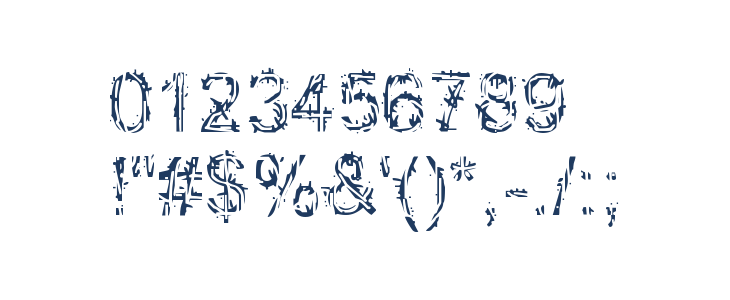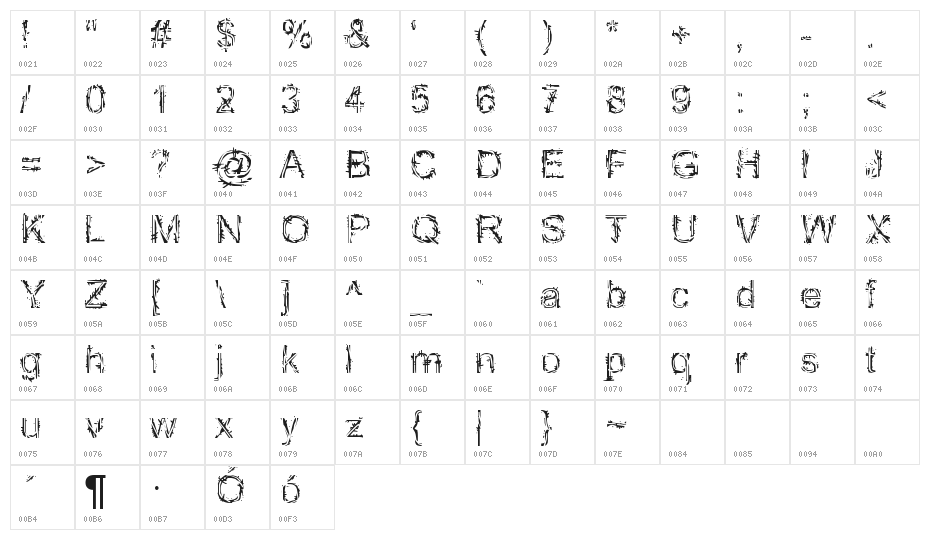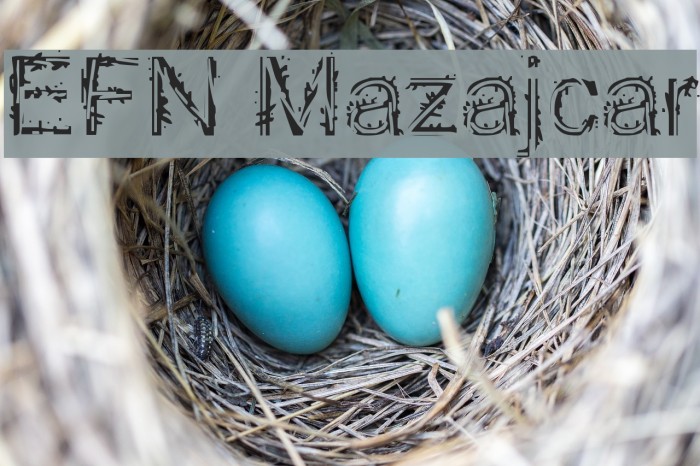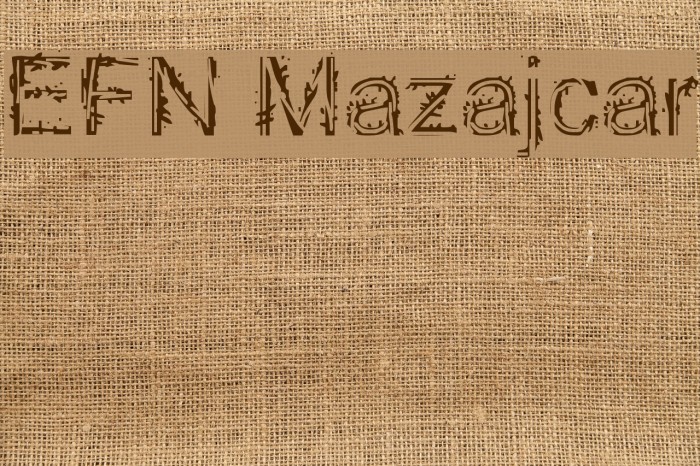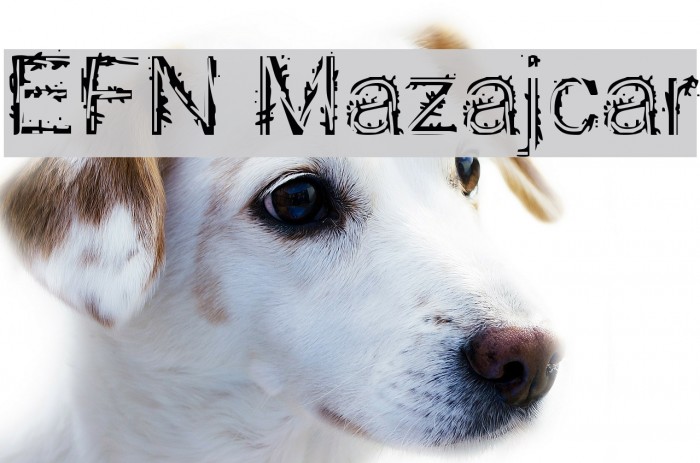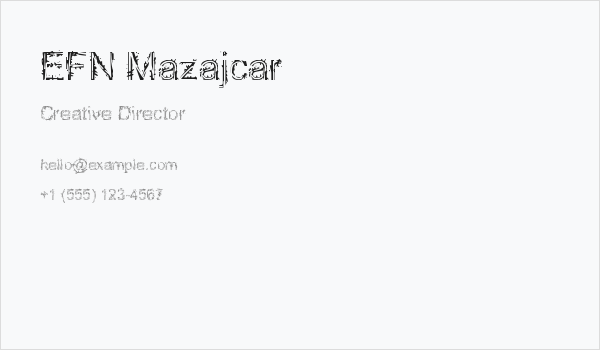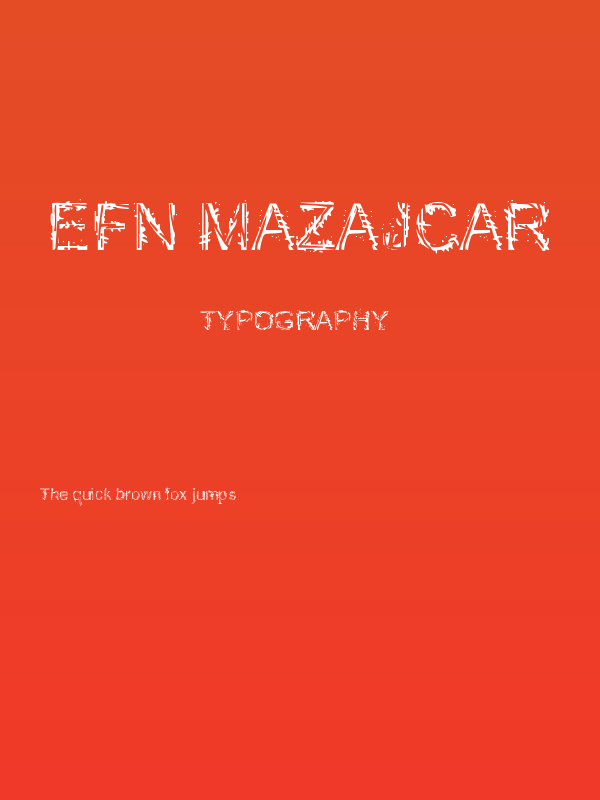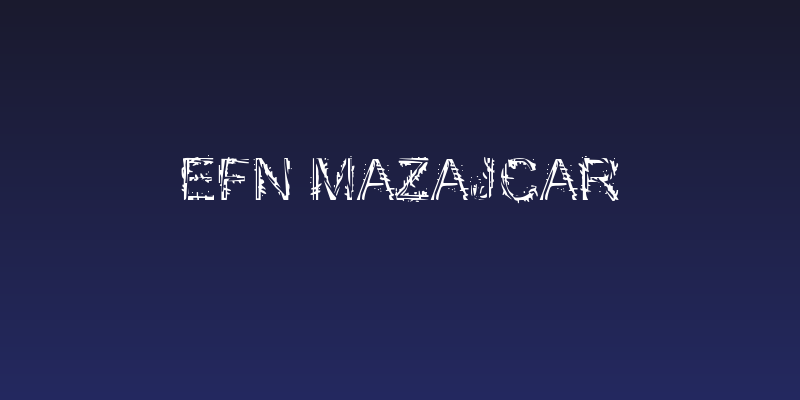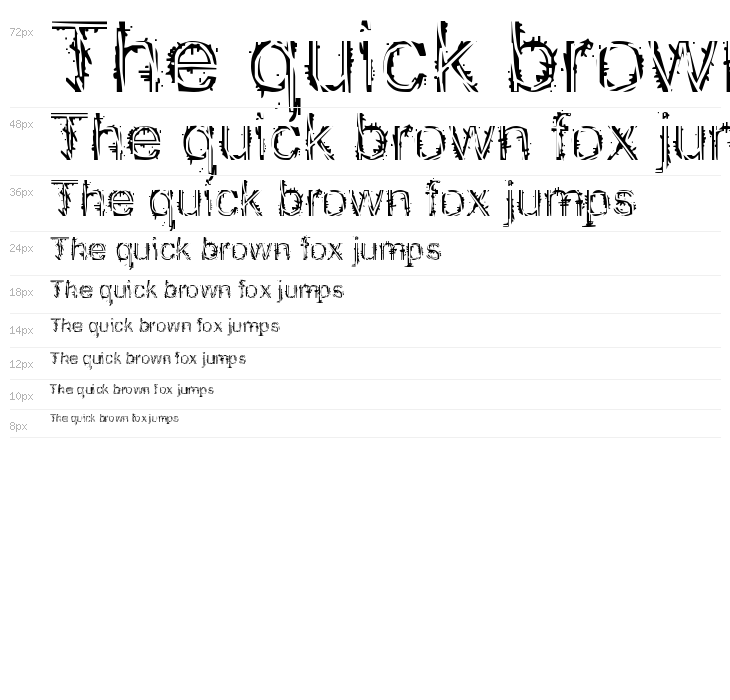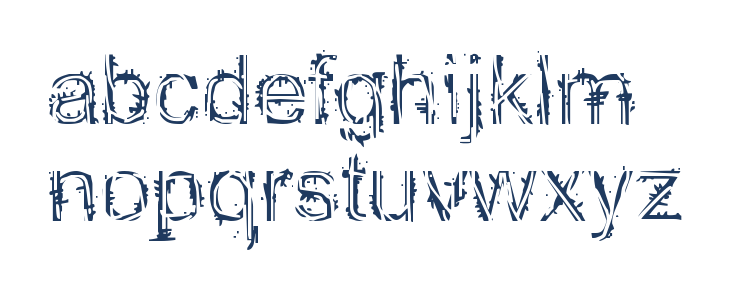
EFN Mazajcar Font
EFN Mazajcar Description
This font features a distressed and grunge aesthetic, characterized by rough, jagged edges and a textured appearance that gives it a worn, weathered look. The uppercase and lowercase letters maintain a consistent style, with each character exhibiting unique imperfections that add to the overall chaotic and artistic feel. The numbers and special characters follow the same design principles, ensuring a cohesive appearance across all glyphs. This font's distinct style makes it stand out, offering a bold statement in any design project.
| Overall Style | Grunge, Artistic |
| Use Case | Headlines, Posters, Artistic designs |
| Proposed Projects | Ideal for album covers, posters, urban-themed designs, and any project requiring a bold, artistic statement. |